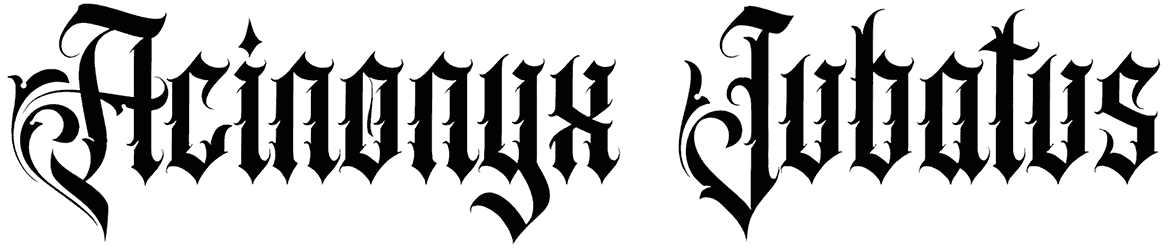
Acinonyx Jubatus Font
Acinonyx Jubatus is a medieval font that takes us back to the era of knights and castles, where honor reigns supreme. This gothic font has ornate details and decorative flourishes that depict the royal grandeur.
But this font isn’t only considered for recreating the past, but can also add complexity to bags, posters, and album covers. So if you want to create a sense of credibility to validate your brand, you can immerse yourself in the magic of the Middle Ages.